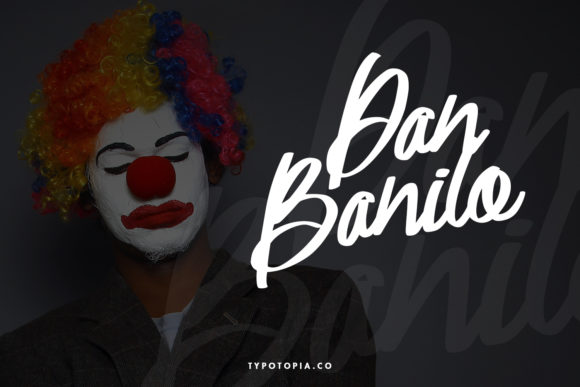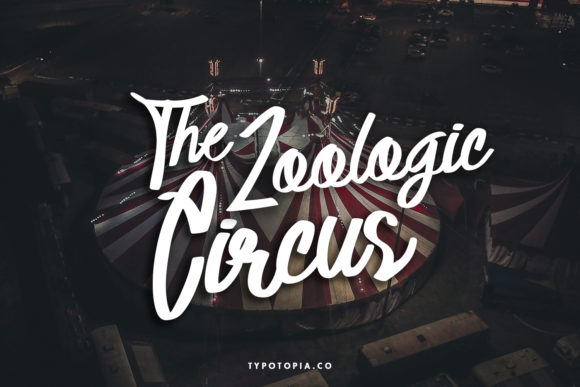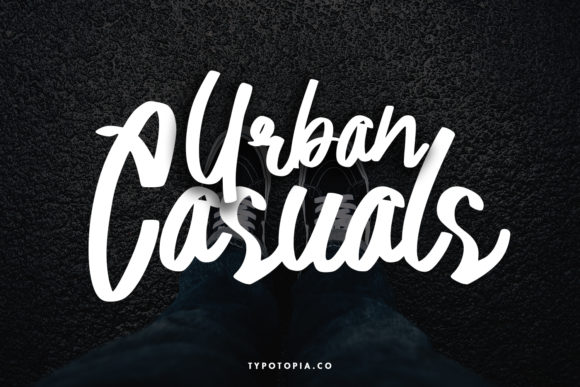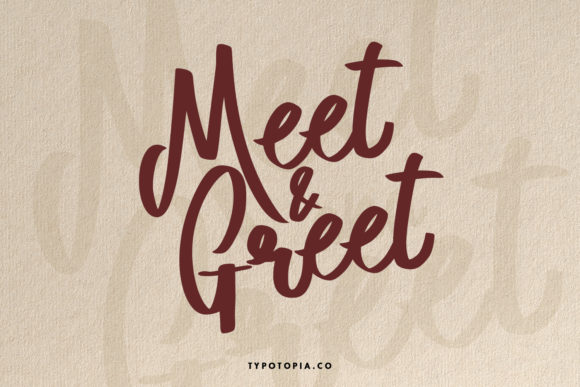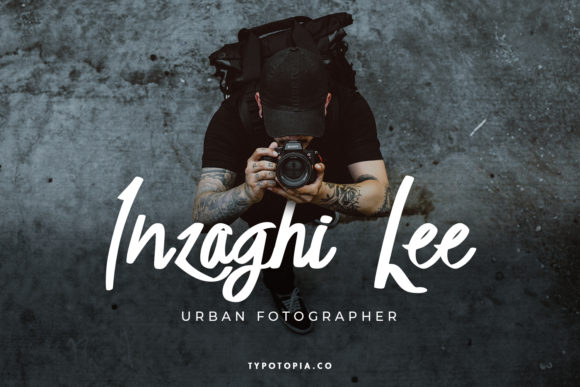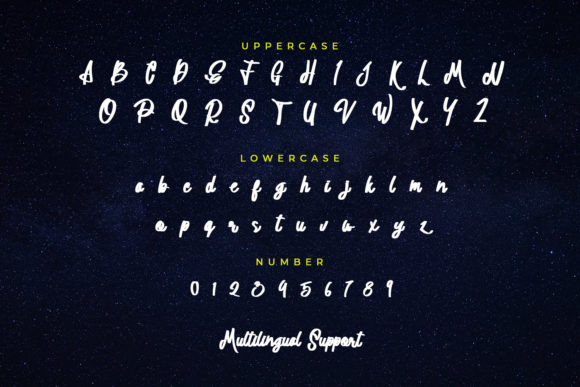
Astania Font: Elevate Your Designs with a Bold and Flowing Handwritten Style
Are you tired of using the same old fonts in your designs? Look no further than Astania Font, a bold and flowing handwritten font that is sure to capture attention and leave a lasting impression. With its incredibly distinct and timeless style, Astania Font is the perfect choice for designers and crafters looking to add a touch of elegance and sophistication to their work.
What Makes Astania Font So Special?
Astania Font is a truly unique and eye-catching font that stands out from the crowd. Its bold and flowing script is reminiscent of classic calligraphy, yet it has a modern and fresh feel that makes it perfect for a wide range of design applications. Whether you’re creating a logo, a poster, or a social media graphic, Astania Font is sure to add a touch of glamour and refinement to your design.
Key Features of Astania Font
• Bold and Flowing Script: Astania Font features a bold and flowing script that is perfect for creating eye-catching designs.
• Handwritten Style: With its handwritten style, Astania Font adds a touch of personality and warmth to any design.
• Distinct and Timeless: Astania Font’s incredibly distinct and timeless style makes it a great choice for designers looking to create designs that will stand the test of time.
• Highly Versatile: Astania Font is highly versatile and can be used for a wide range of design applications, from logos and posters to social media graphics and more.
How to Use Astania Font in Your Designs
Using Astania Font in your designs is easy and straightforward. Here are a few tips to get you started:
• Pair it with a Simple Background: Astania Font really stands out against a simple background, so try pairing it with a solid color or a subtle texture.
• Experiment with Colors: Astania Font looks great in a wide range of colors, so don’t be afraid to experiment and find the perfect color to match your brand or design.
• Use it for Headlines and Titles: Astania Font is perfect for headlines and titles, where its bold and flowing script can really make an impact.
Astania Font is perfect for designers and crafters who are looking to add a touch of elegance and sophistication to their work. Whether you’re creating designs for a client or working on a personal project, Astania Font is a great choice for anyone looking to create stunning and effective designs.
Benefits of Using Astania Font
• Save Time: With Astania Font, you can create stunning designs in no time. Its bold and flowing script is easy to read and understand, making it perfect for designers who are short on time.
• Stand Out from the Crowd: Astania Font is a truly unique and eye-catching font that is sure to make your designs stand out from the crowd.
• Professional Results: Astania Font is perfect for designers who want to create professional-looking designs that will impress their clients or audience.
In conclusion, Astania Font is a bold and flowing handwritten font that is sure to elevate your designs to the next level. With its incredibly distinct and timeless style, Astania Font is the perfect choice for designers and crafters looking to add a touch of elegance and sophistication to their work. So why wait? Fall in love with Astania Font and start creating spectacular designs today!